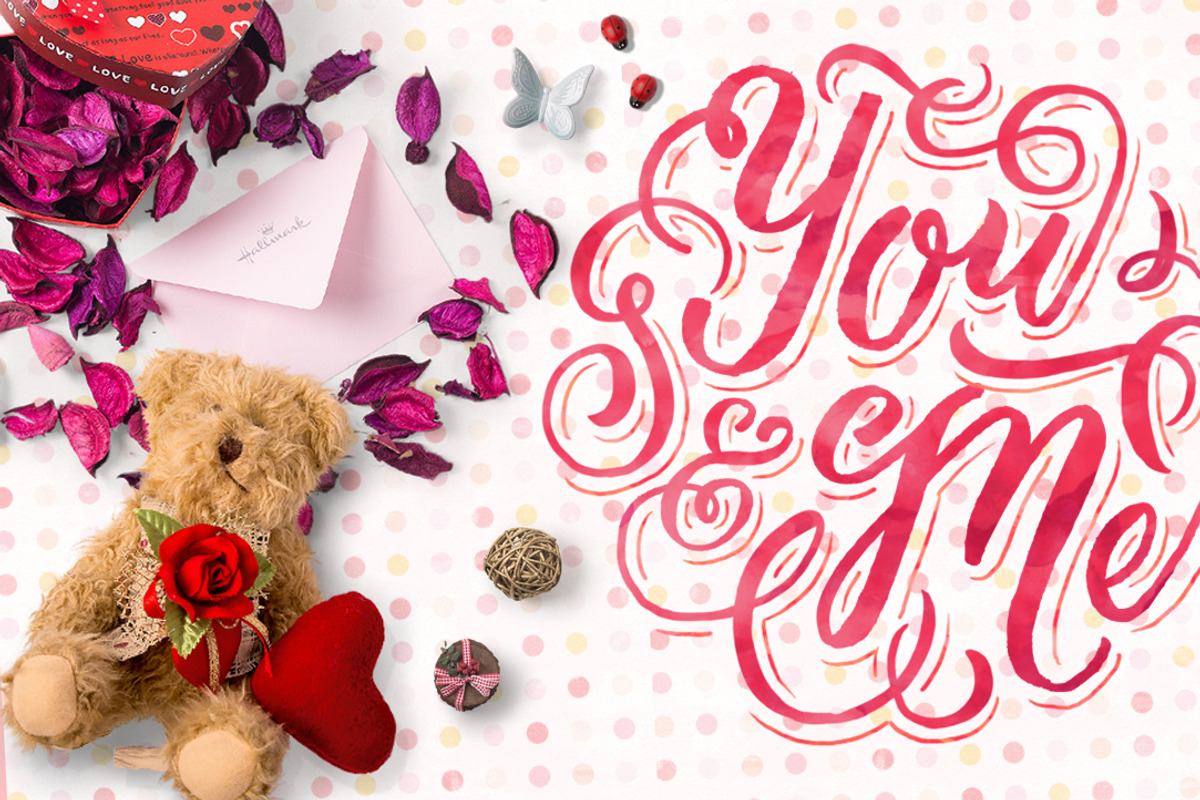
Mira & Graphic Watercolor & Swirls Free Download is a beautifully artistic bundle that combines an elegant script font with delicate watercolor elements and decorative swirls. Perfect for wedding invitations, branding for beauty and lifestyle products, feminine packaging, social media templates, and romantic stationery, this set adds a soft, graceful touch to any design.
The Mira font features fluid, hand-lettered strokes that pair seamlessly with the included watercolor textures and swirly embellishments. This collection is ideal for creatives who want to craft dreamy, sophisticated visuals with a handcrafted feel.